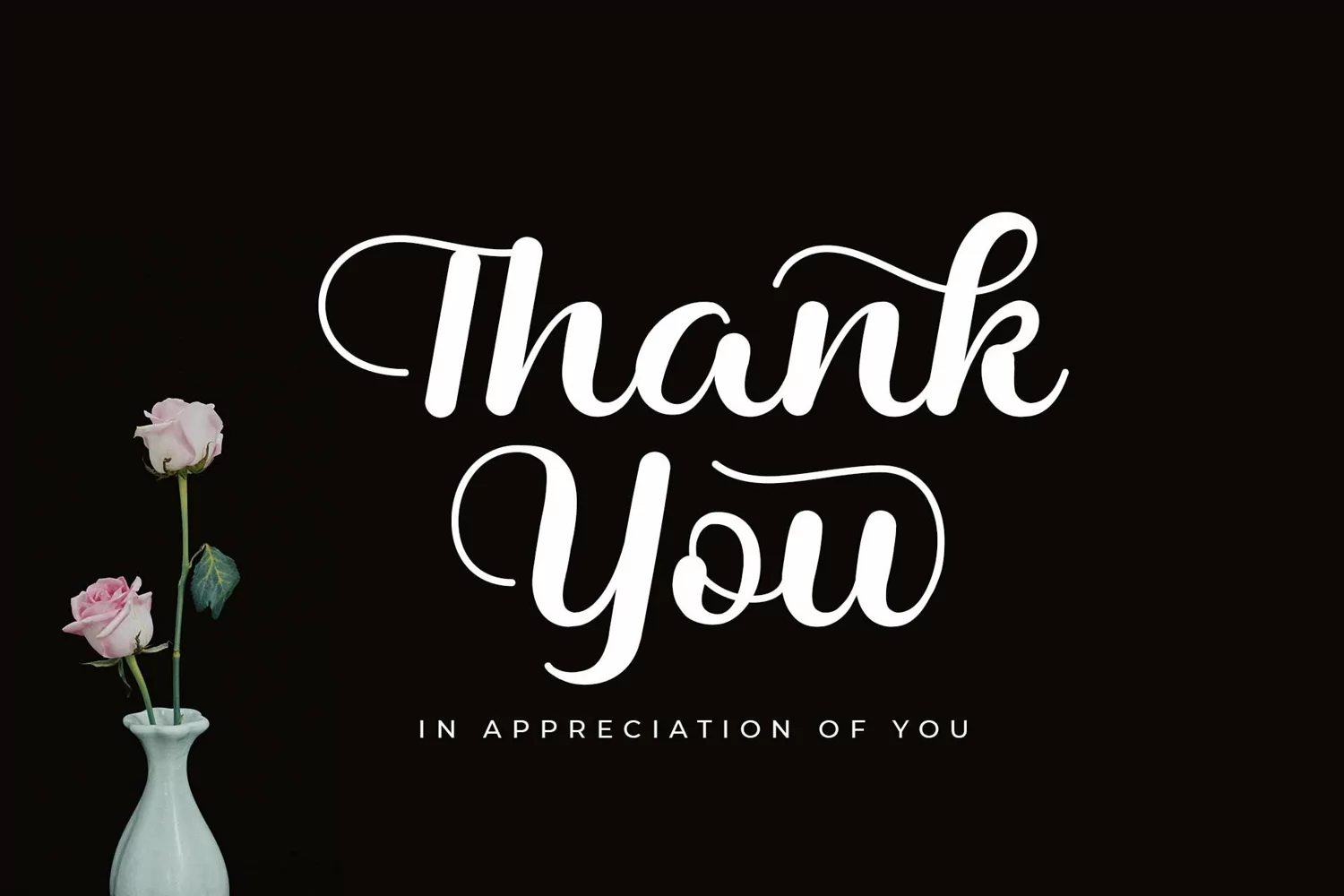
Explore Magic is a romantic and sweet calligraphy typeface with characters that dance along the baseline. It will add a luxury spark to any design project that you wish to create! This font is PUA encoded which means you can access all of the amazing glyphs and ligatures with ease!